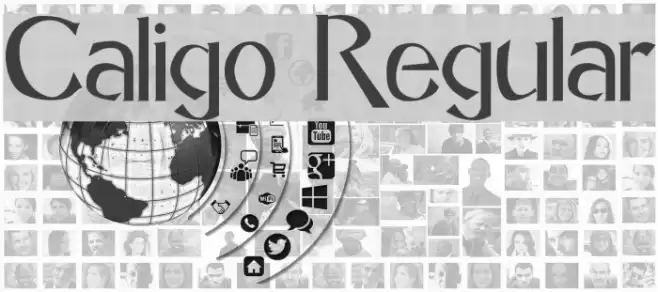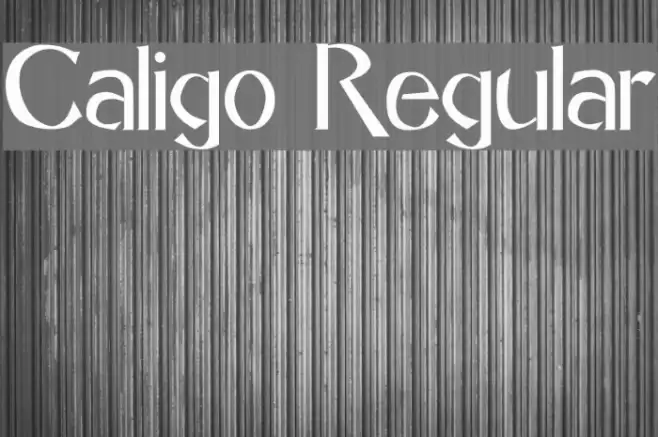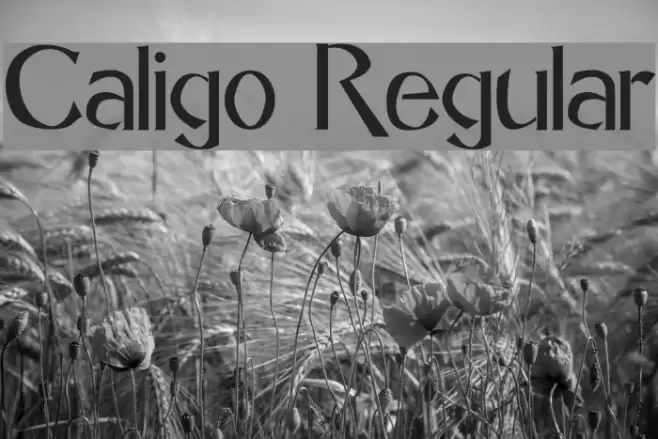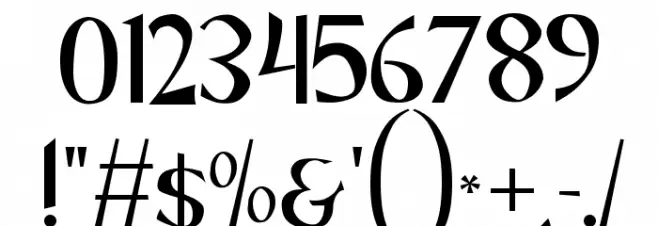
Caligo Regular Font
Caligo Regular Description
This font features a unique blend of sharp angles and smooth curves, creating a striking and modern appearance. The uppercase letters are bold and dynamic, with a distinct geometric influence that adds a sense of movement and energy. The lowercase letters maintain this aesthetic, offering a cohesive look across different text cases. Numbers are crafted with the same attention to detail, ensuring readability and style. Special characters are thoughtfully designed, complementing the overall aesthetic. This font's bold strokes and angular design make it stand out, perfect for projects that require a contemporary and edgy feel.
A modern, angular font with bold strokes and geometric influences from Uncategorized fonts.
- Proposed Projects: Ideal for branding, posters, and editorial design where a modern and edgy look is desired.